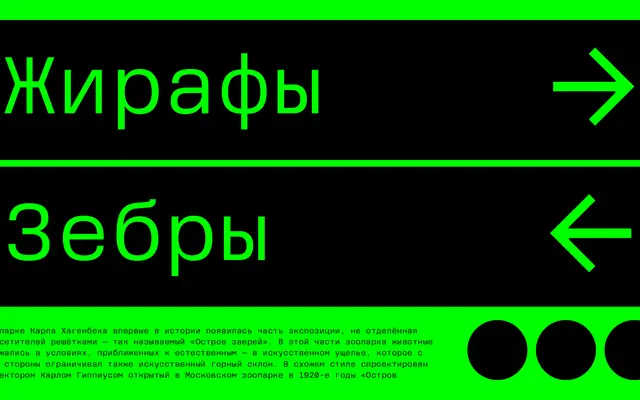
Rooftop Mono specimen from Interval Type
A monospaced grotesque with squarish curves and a humanist structure drawn from early American grotesque sources such as Lining Gothic and Gothic No. 2.
Rooftop Mono takes its cues from Barnhart Bros. and Spindler's Lining Gothic and Palmer & Ray's Gothic No. 2, applying their proportions to a fixed-width format. Slightly squarish curves and a blunt treatment of letters like f, t, r, g and y give it a utilitarian, tech-inflected character without abandoning legibility at small sizes. Three weights cover Regular, Medium and Bold, with coverage across Extended Latin and Cyrillic.
A monospaced typeface drawing directly from early 20th-century American grotesks, with squarish curves and a humanist construction approach that places it firmly in the grotesque mono subcategory.